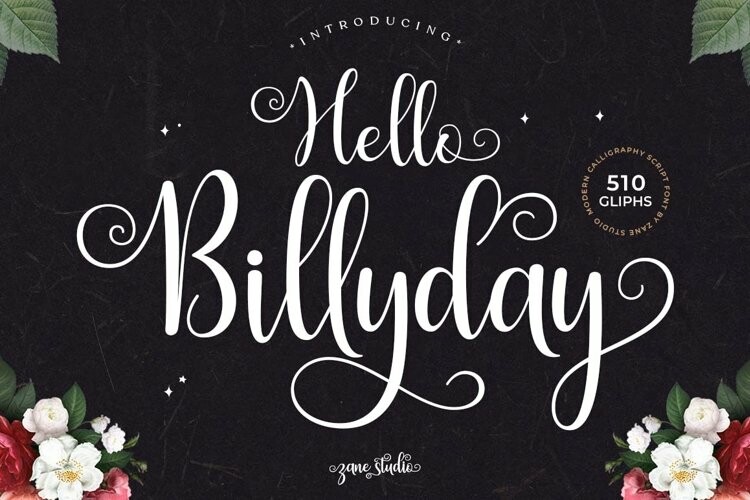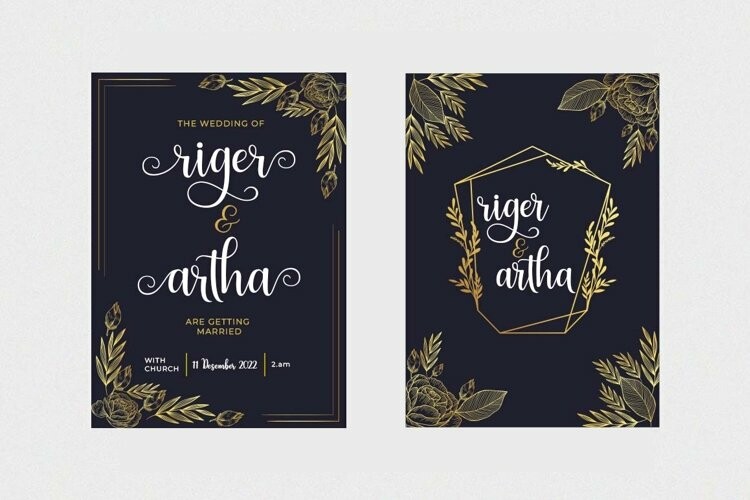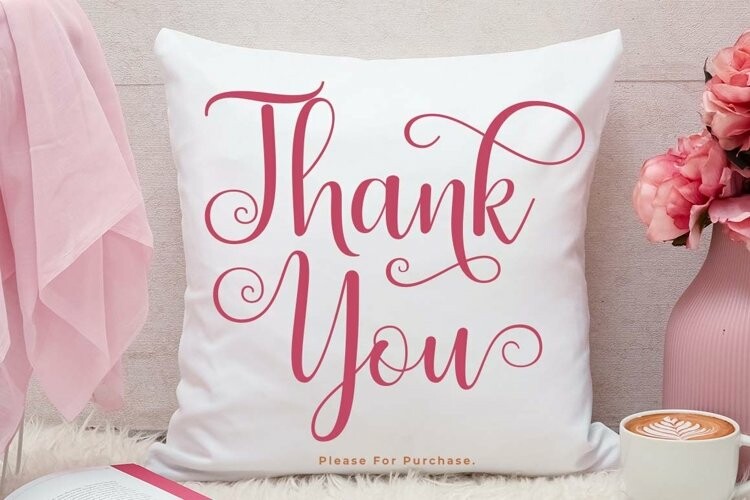
Hello Billyday Font
Hello Billyday FontHello Billyday Script is a soft and sweet calligraphic typeface, with the characters dancing along the baseline. It has a casual and elegant touch. It can be used for various purposes such as logos, wedding invitations, titles, t-shirts, letterheads, nameplates, labels, news, posters, badges etc.